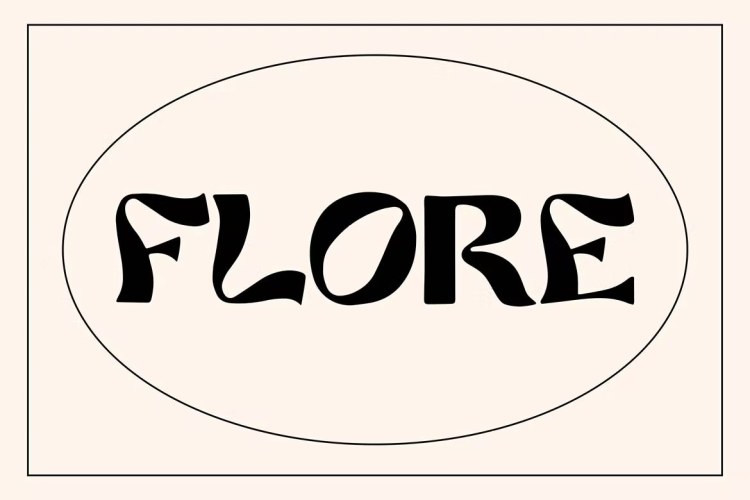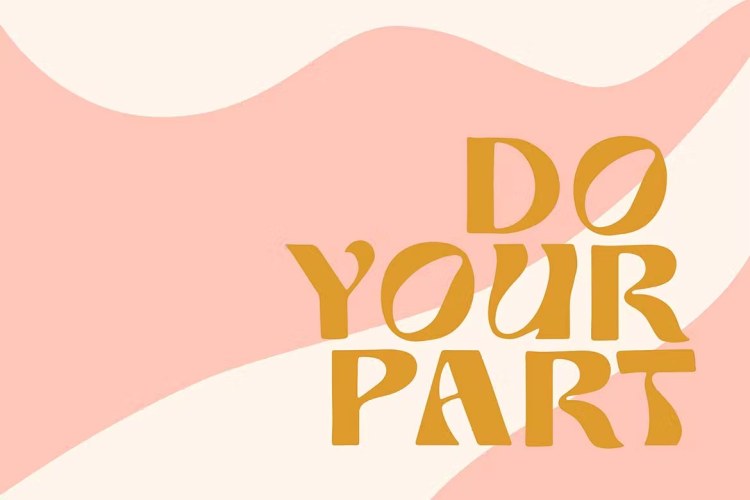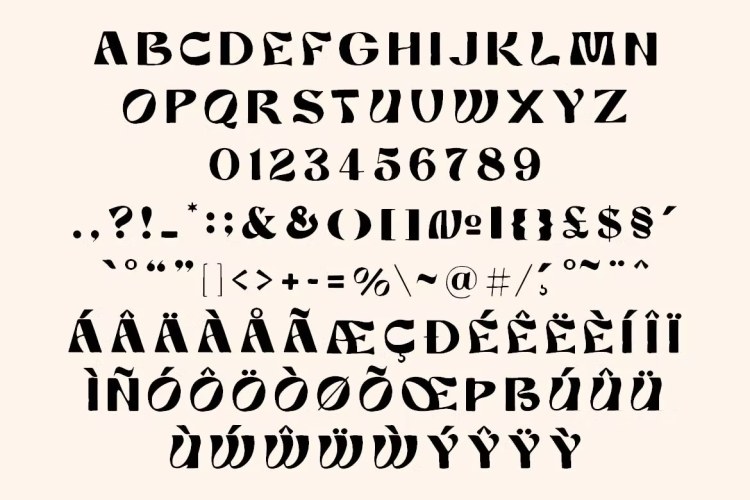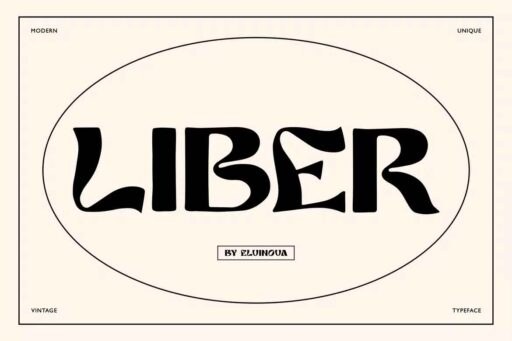
Liber Font
Liberal Retro is a cool font that has a strong, old-fashioned look. Because it combines old and new styles, it’s great for logos, signs, branding, and packaging. Liber R…
Liberal Retro is a cool font that has a strong, old-fashioned look. Because it combines old and new styles, it’s great for logos, signs, branding, and packaging.
Liber Retro adds a retro but modern touch to any project with its strong lines and unique letter shapes. Because it can do many things, it’s great for both computer and print designs.
This font has a classic look that works well for both headlines and logos. Get Liber Retro for your next project to add some old-fashioned charm to your work.
Where Liber Font works best
Liber Font is built for size: event posters, hero headlines and billboard-style layouts.
High contrast display type like Liber Font reads instantly in thumbnails and motion graphics.
What is Liber Font good for?